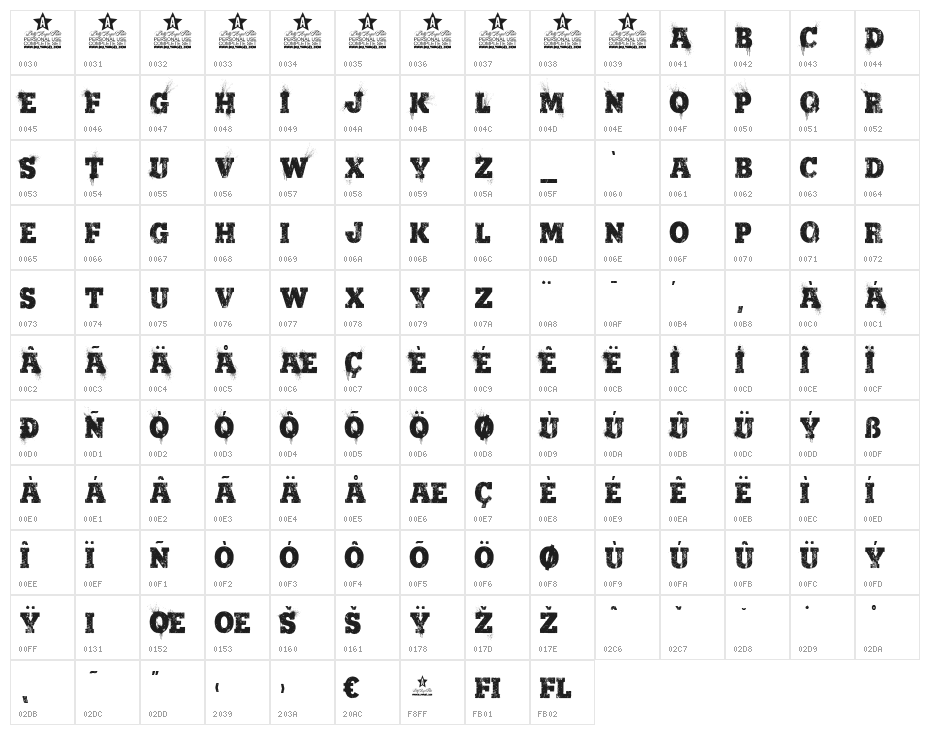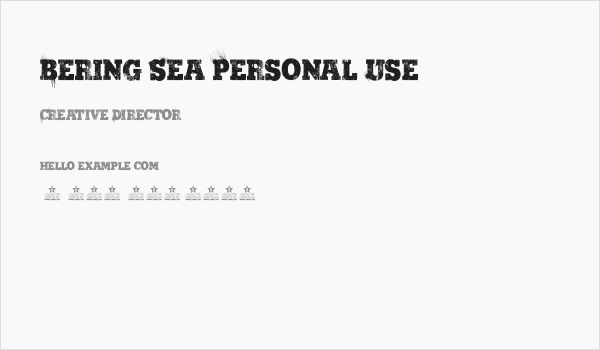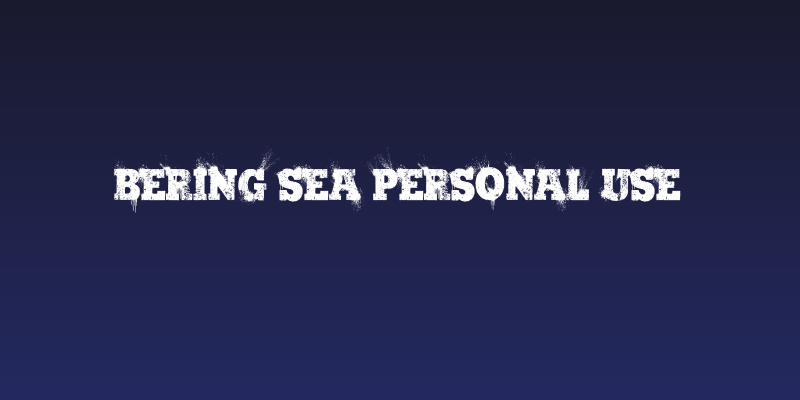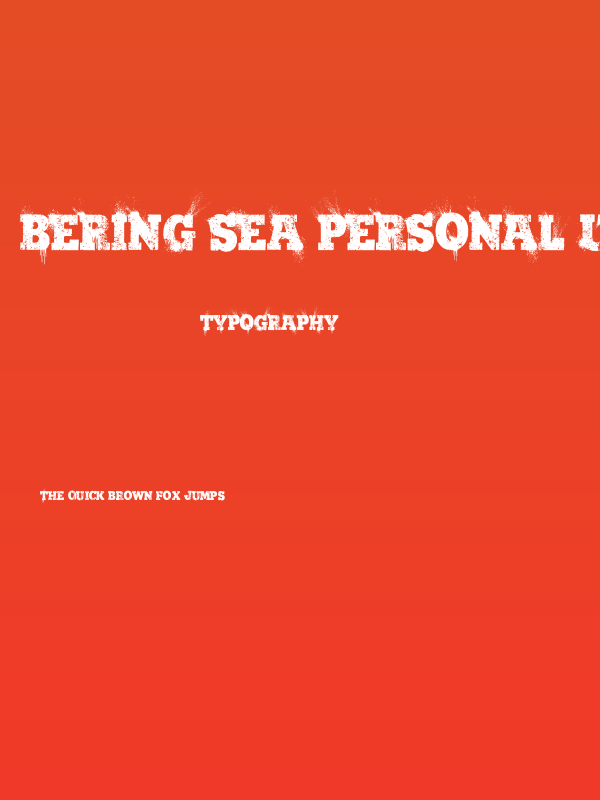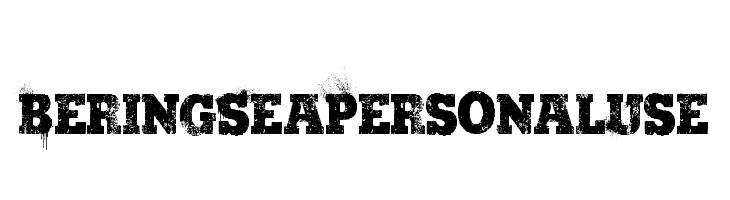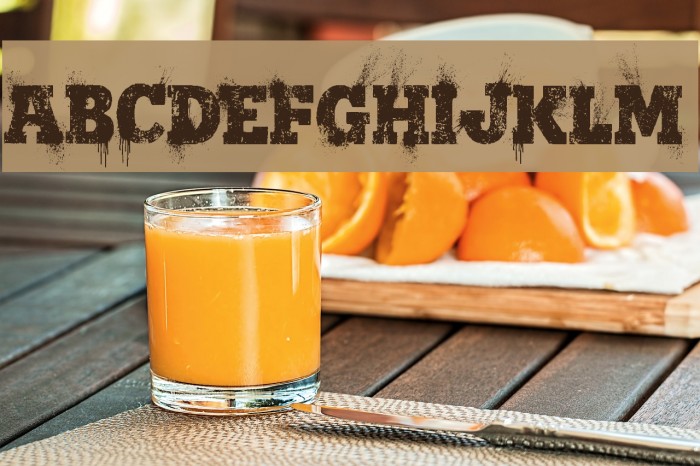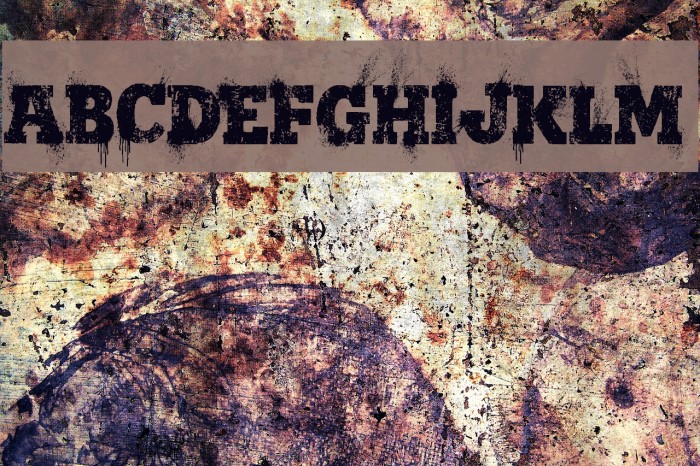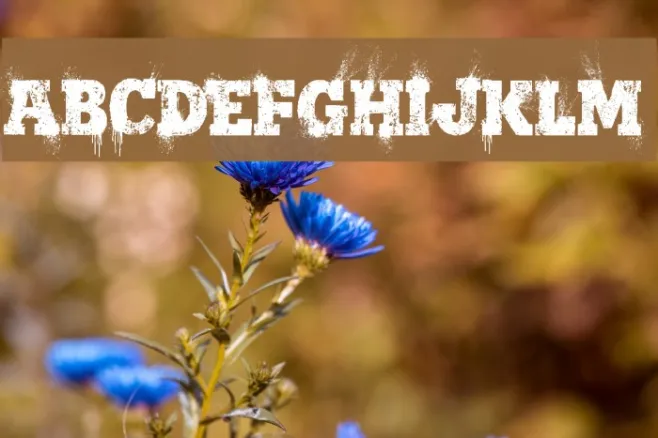
Bering Sea Personal Use Font
Bering Sea Personal Use Description
This font features a bold, distressed style with a grunge effect that gives it a rugged and worn appearance. The uppercase letters are prominently displayed with a textured overlay that mimics the look of weathered paint or ink, creating a sense of movement and energy. The characters are uniformly bold, with a consistent thickness throughout, adding to the impactful and dramatic feel. The font's unique aesthetic makes it stand out, ideal for projects that require a strong visual statement. Its decorative nature is perfect for designs that aim to capture attention and convey a sense of edginess or rebellion.
| Overall Style | Grunge, Edgy |
| Proposed Projects | Ideal for posters, album covers, streetwear branding, and event promotions. |